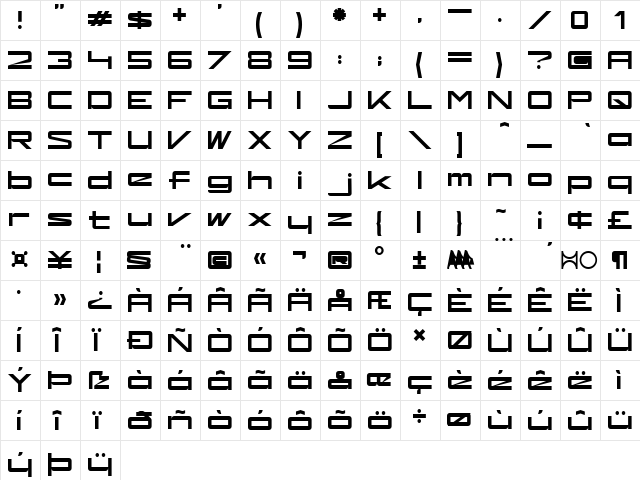
kaufhalle Regular
Design Context for kaufhalle Typeface
kaufhalle is a composed and adaptable typeface that performs quietly and consistently across a wide range of design contexts.